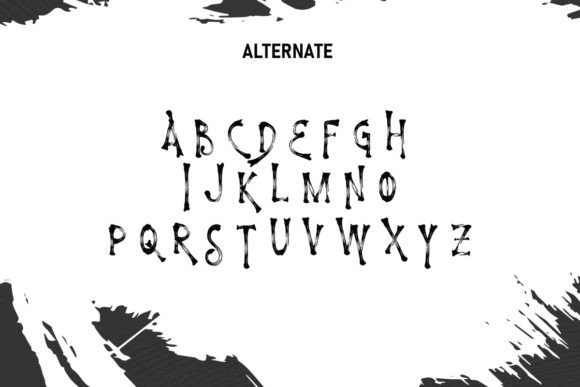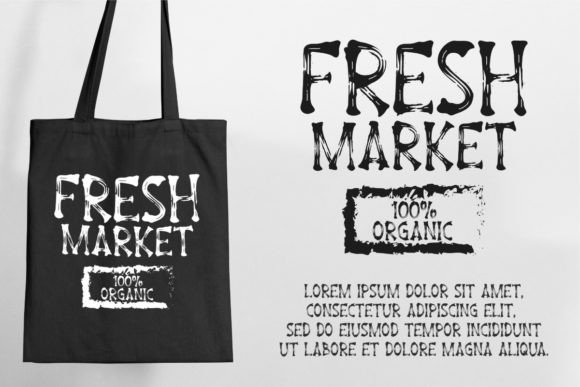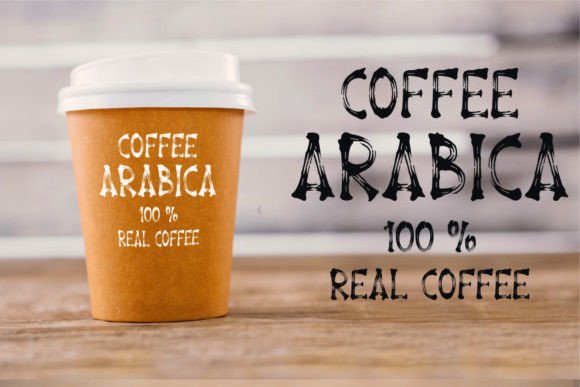
The Elusive Perfect Font: My Encounter with Dark Secret
As a designer, I’ve had my fair share of frustrating moments – struggling to find the perfect font for a project, dealing with tight deadlines, and navigating client requests. But one particular experience stands out in my mind. I was working on a branding project for a new coffee shop, and I needed a font that would capture the warm, welcoming atmosphere of their cozy cafe. I spent hours scouring font libraries, but nothing seemed quite right. That was until I stumbled upon Dark Secret, a modern and attractive brush font that would change the game.
A First Impression: What I Love About Dark Secret
Dark Secret is a stunning brush font that features thick and thin strokes, giving it a natural, hand-painted look. Here are just a few things that I love about this font:
- ✨ Unique and eye-catching: Dark Secret’s bold brush strokes make it perfect for making a statement.
- ✅ Versatile design: This font is suitable for a wide range of projects, from branding and advertising to packaging and signage.
- 💫 Welcoming feel: The friendly curves in Dark Secret give it a warm and inviting personality.
An Honest Review: Small Quirks and Limitations
While Dark Secret is an amazing font, it’s not without its quirks. Here are a few things to keep in mind:
- 🤔 Legibility at small sizes: As with many script fonts, Dark Secret can be a bit tricky to read at very small sizes. Be sure to test it out at different sizes to ensure it’s legible for your project.
- ⚠️ Overuse of swashes: While the swashes in Dark Secret are beautiful, it’s easy to overdo it. Be mindful of how many swashes you use, as too many can make your text look cluttered.
The Story Behind Dark Secret
While the true story behind Dark Secret remains a mystery, it’s easy to imagine that it was inspired by the world of art and design. Perhaps the font’s creator was inspired by the bold brushstrokes of abstract expressionism or the delicate curves of hand-painted signage. Whatever the inspiration, Dark Secret is a true masterpiece that deserves to be celebrated.
| Font Name | Dark Secret Font |
| Author | RaisProject |
| What is Dark Secret’s personality? | Dark Secret has a bold, playful personality with a warm and welcoming feel. |
| Is Dark Secret suitable for body text? | While Dark Secret is beautiful, it’s best suited for headlines and titles. For body text, consider a more legible font. |
| Is Dark Secret easy to read? | Dark Secret is generally easy to read, but it can be tricky at very small sizes. Be sure to test it out before finalizing your design. |